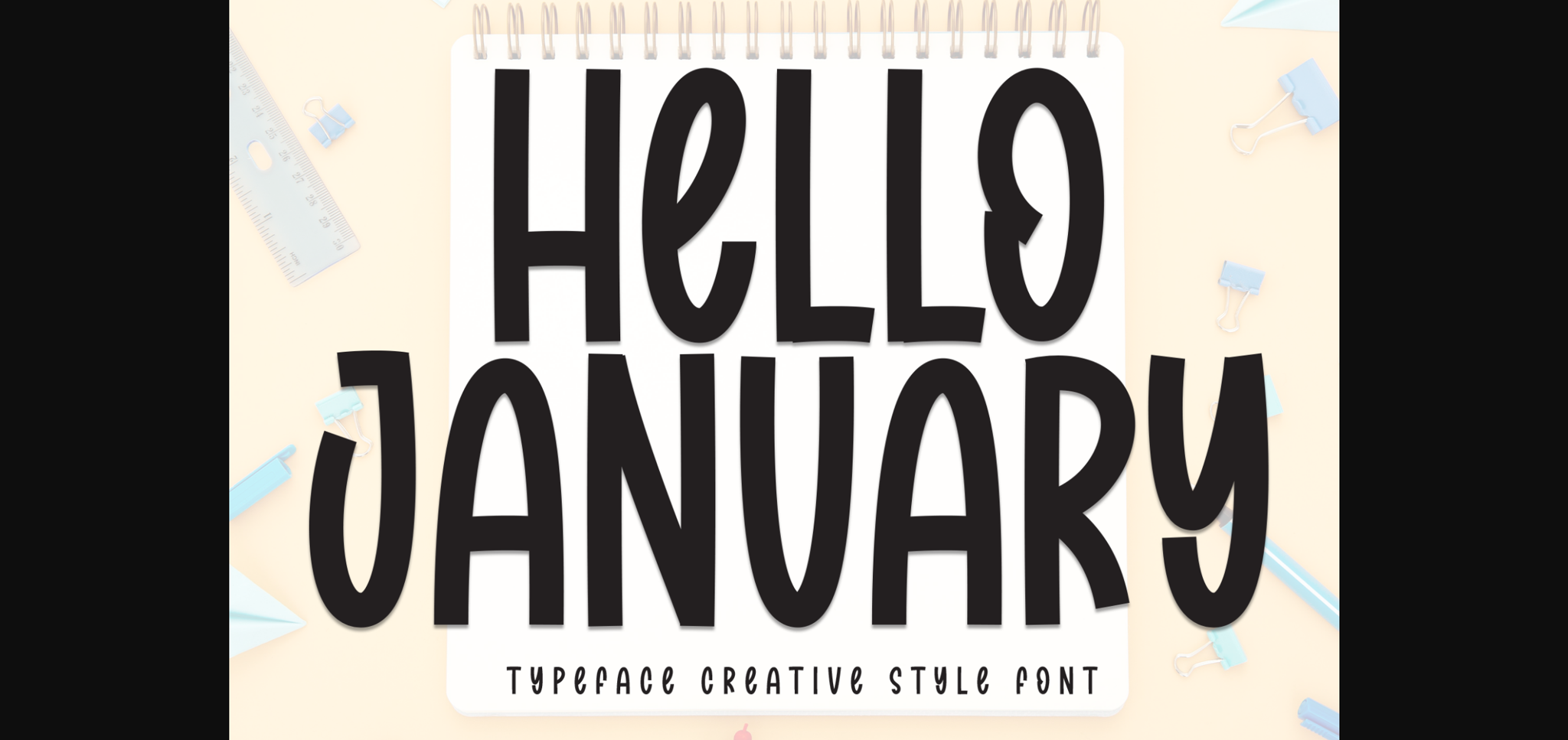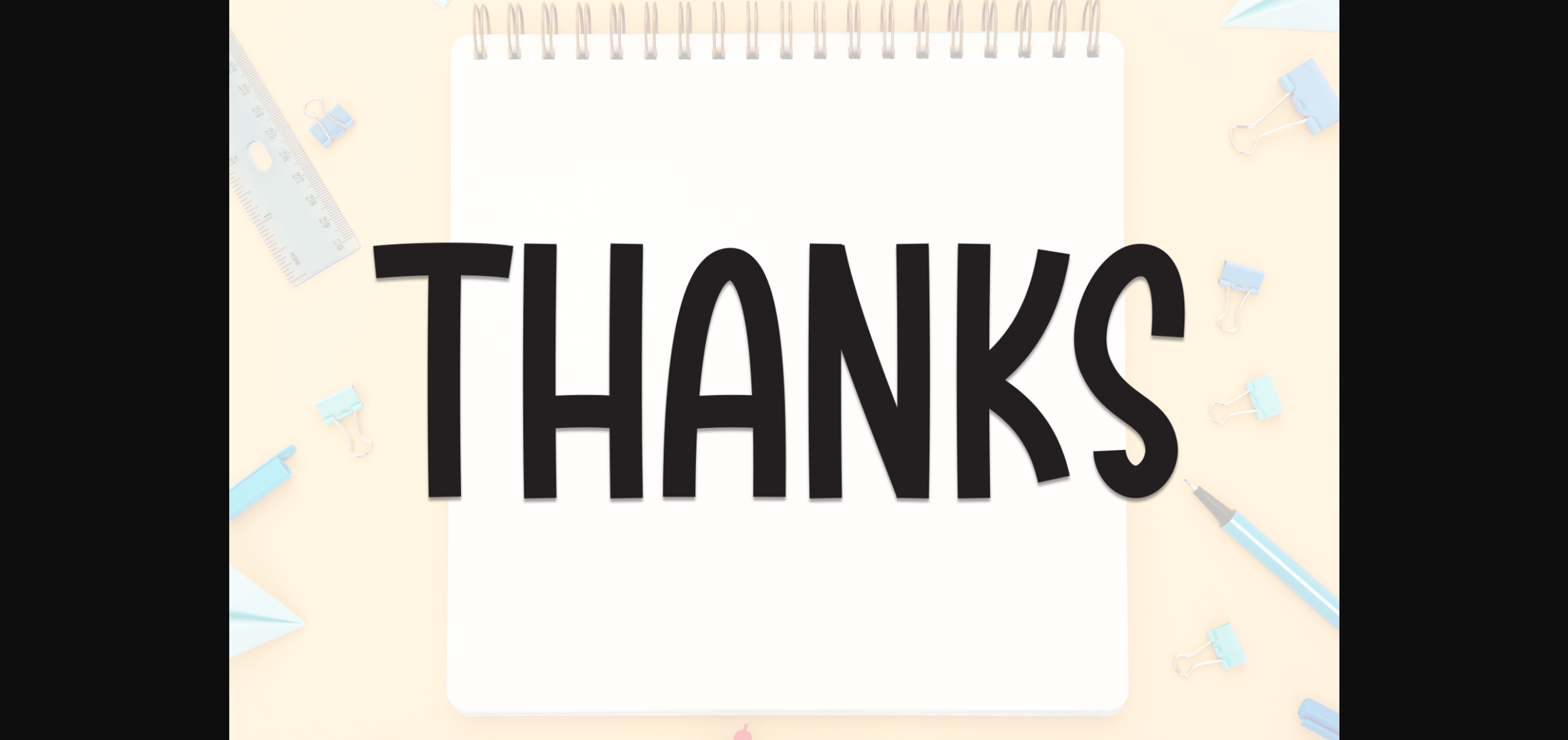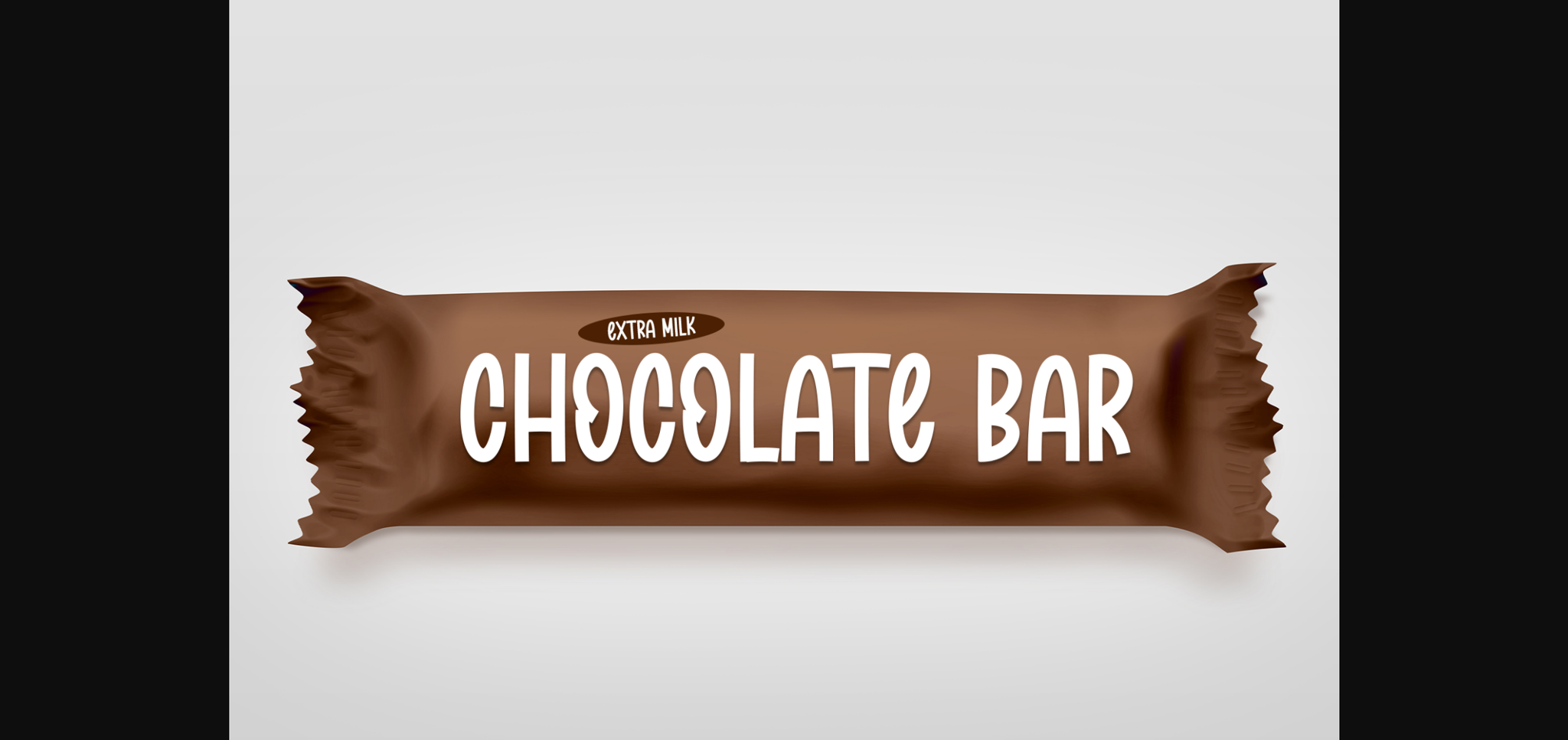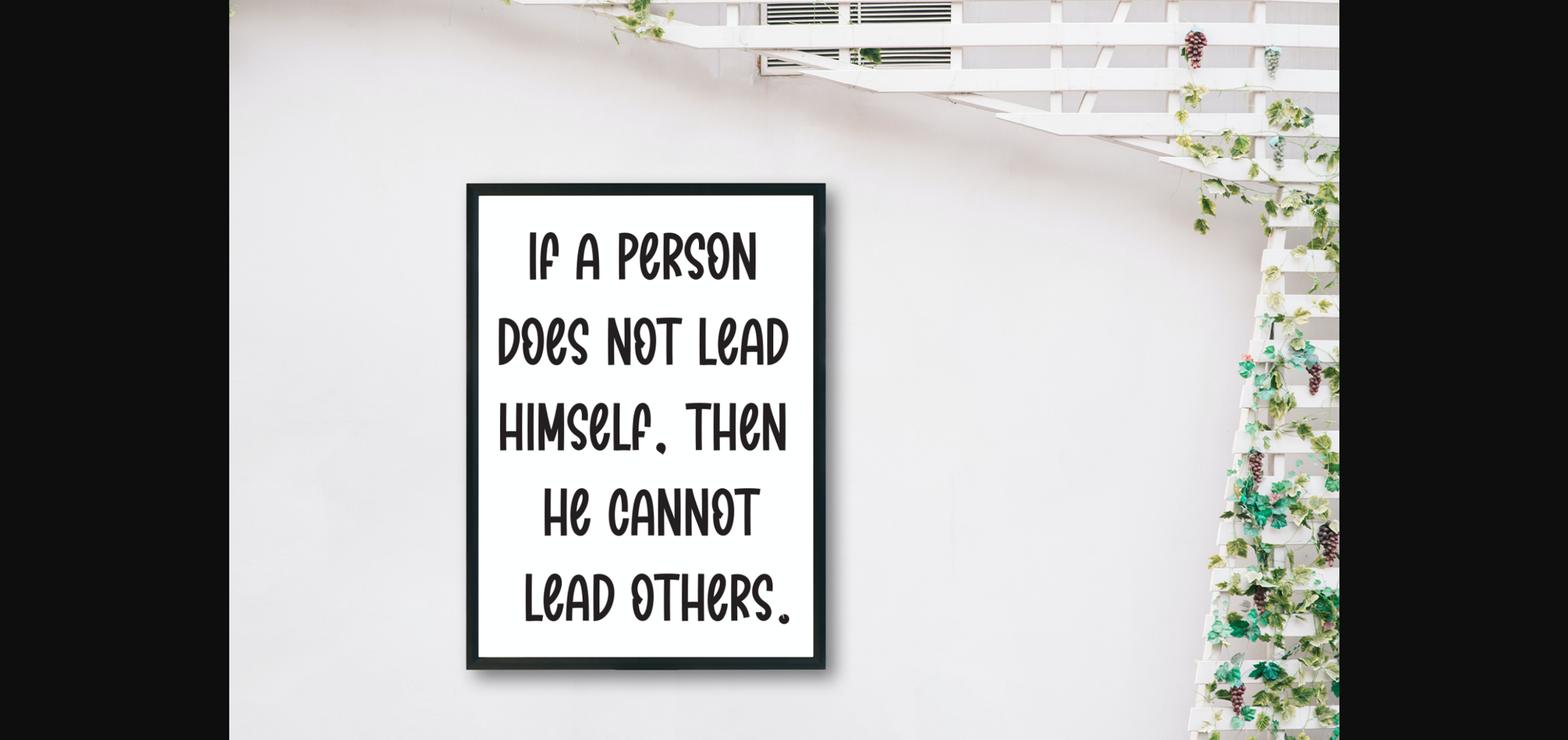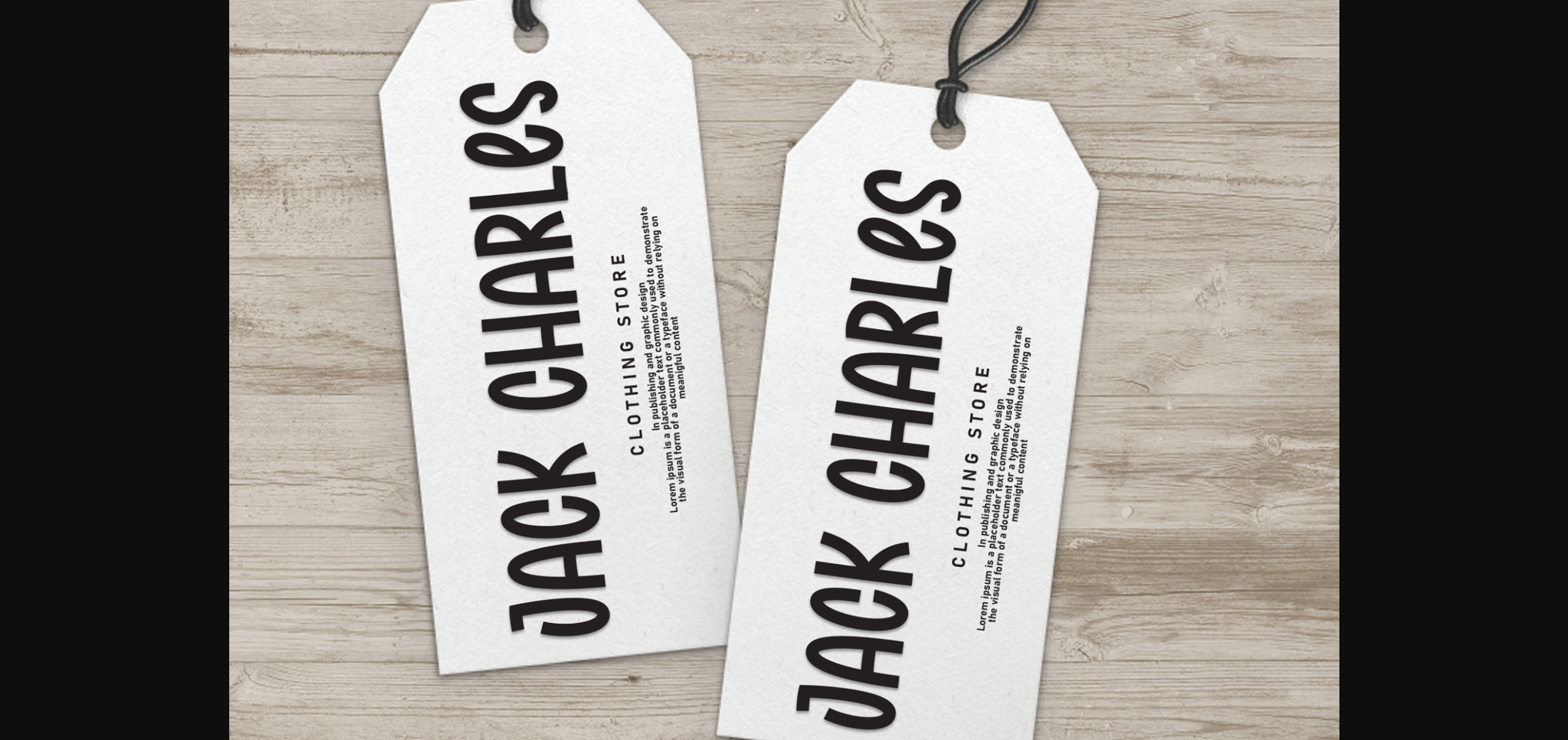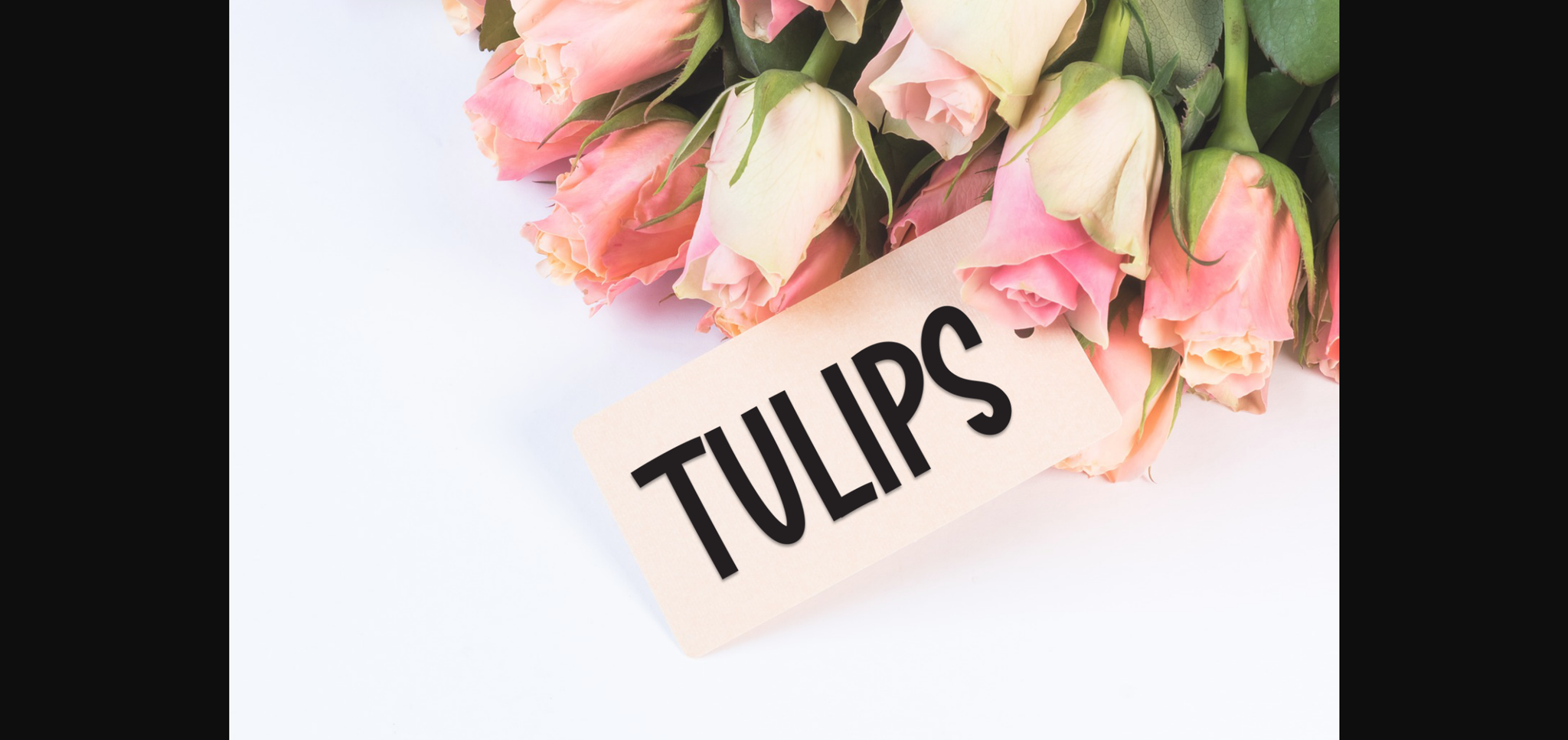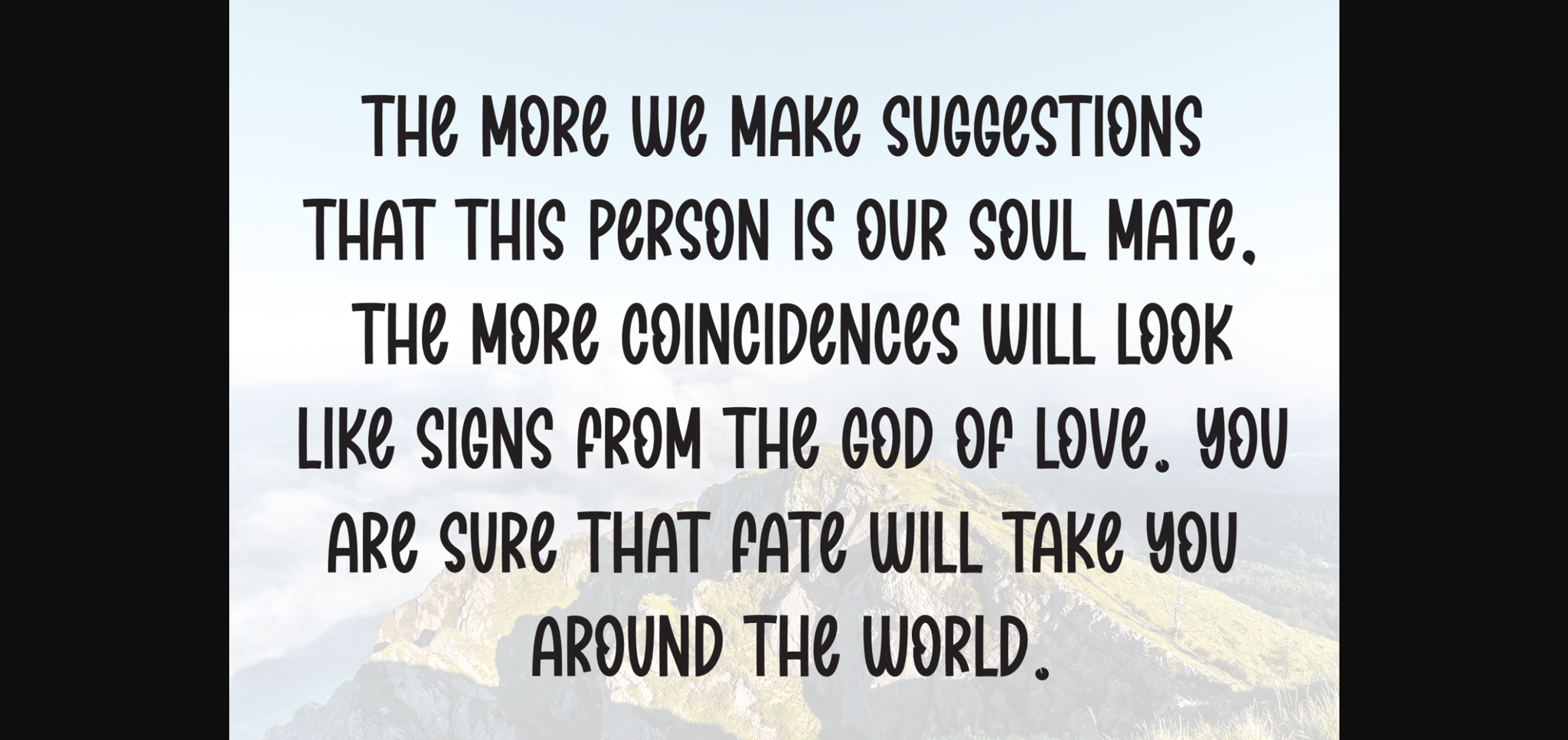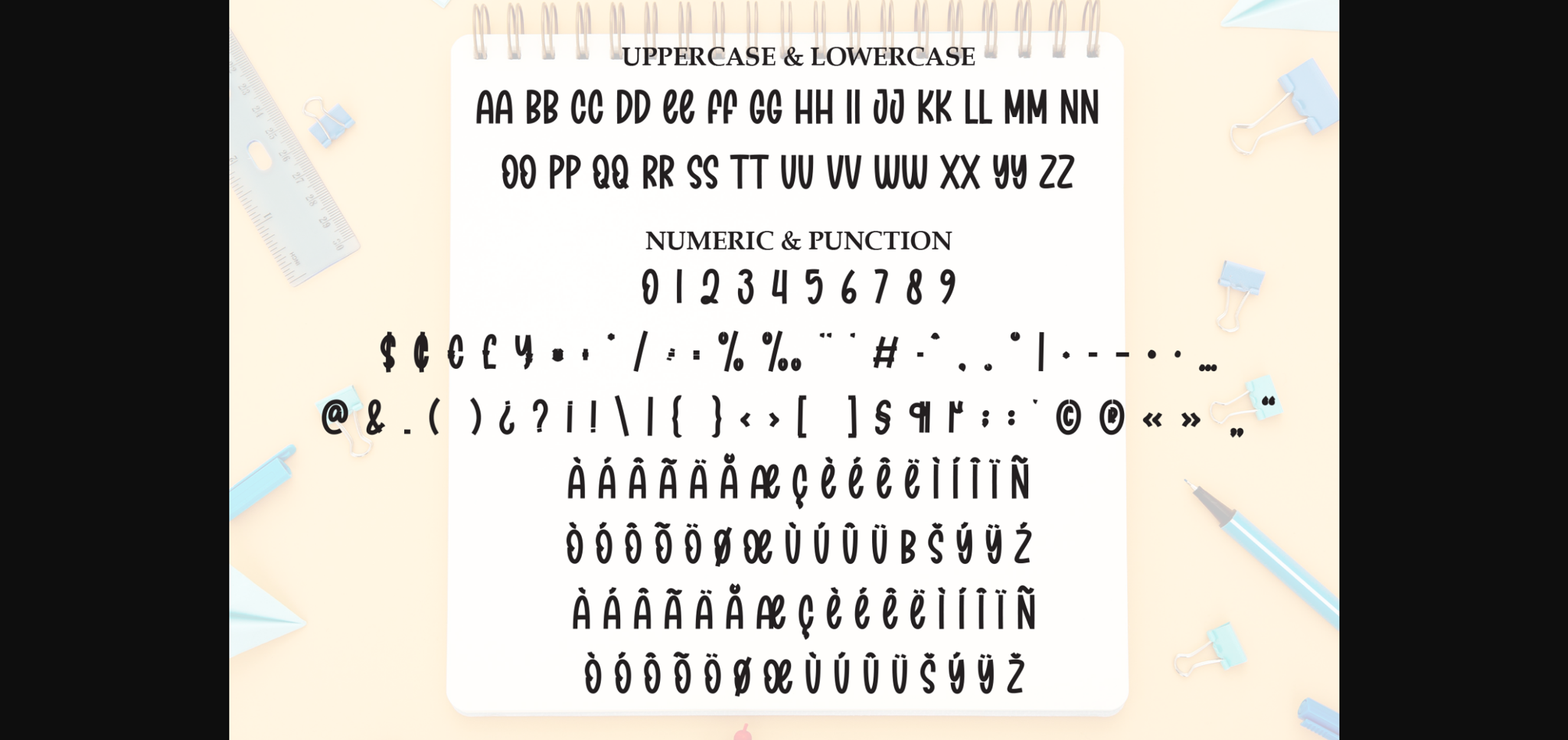
Hello January is a fun and versatile sans-serif font. Whether you’re using it for crafting, digital designing, presentations, or greeting card making, it’s perfect!